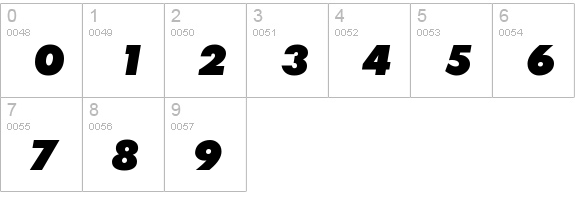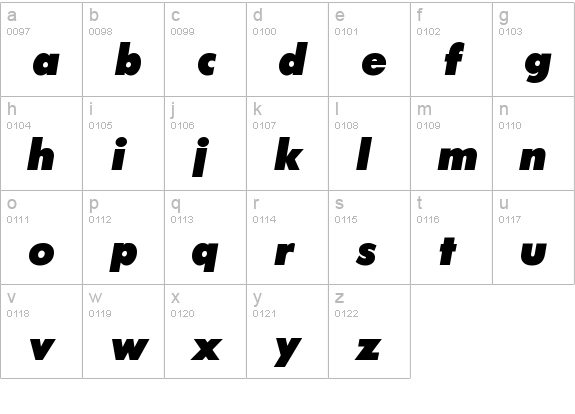
Futura ICG XBold Oblique Font Details
Futura ICG XBold Oblique is a distinctive, italic variant in the Futura typeface family \xE2\x80\x94 well suited to design and typography projects.
Futura ICG XBold Oblique is a striking and modern typeface that exudes power and sophistication. With its bold weight and sleek slanted style, this font commands attention and adds a touch of elegance to any design project. Its clean lines and geometric shapes make it a versatile choice for a wide range of applications, from branding to editorial design. What sets Futura ICG XBold Oblique apart is its seamless blend of strength and style, making it a go-to choice for designers looking to make a bold statement. Whether used in headlines, logos, or packaging, this font effortlessly conveys a sense of confidence and professionalism. Best of all, Futura ICG XBold Oblique is available for free download at FontsMarket.com, making it easily accessible to designers looking to elevate their projects with a touch of modern sophistication. Don't miss out on the opportunity to enhance your designs with this exceptional typeface. Download Futura ICG XBold Oblique today and make a powerful impact with your next project.